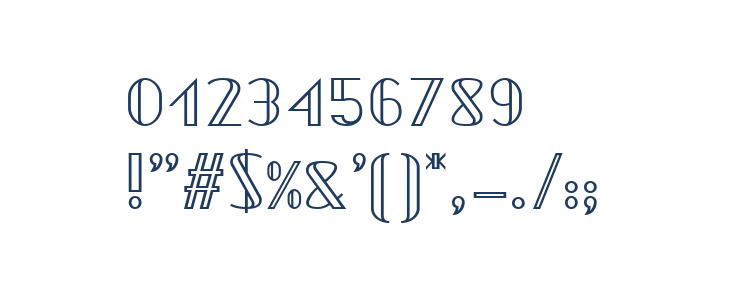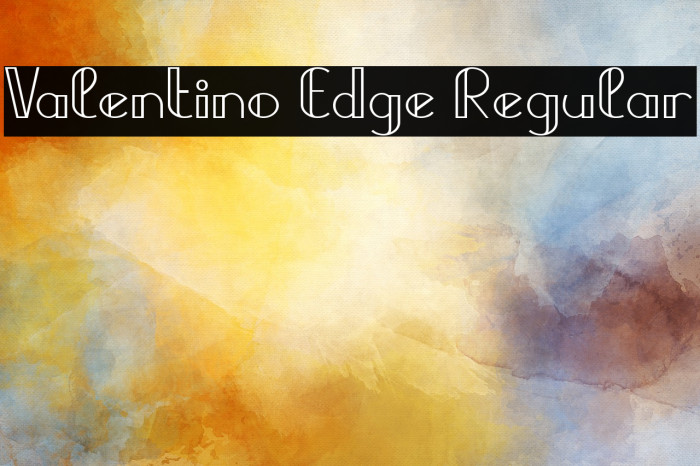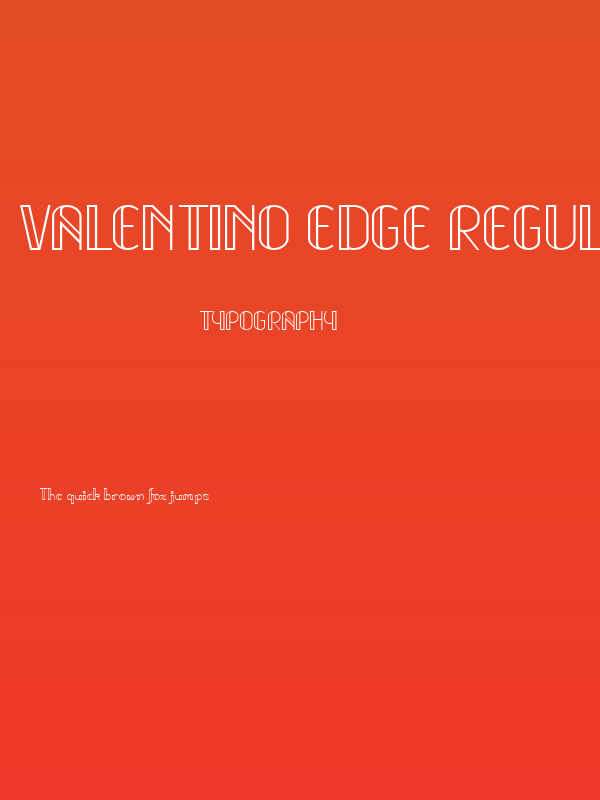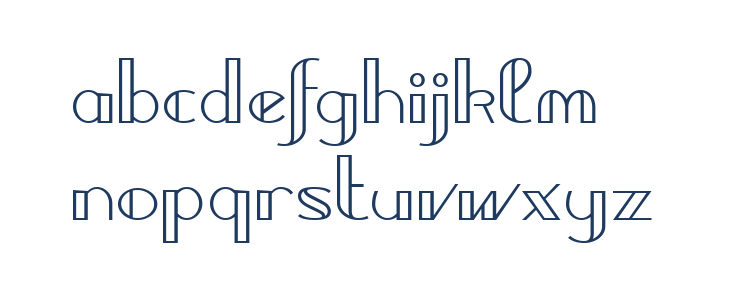
Valentino Edge Regular Font
Valentino Edge Regular Description
This font features a unique blend of modern and vintage aesthetics, characterized by its geometric shapes and clean lines. The uppercase letters exhibit a distinct art deco influence, with elongated forms and sharp angles, while the lowercase letters maintain a more rounded and approachable appearance. The numerals and special characters are designed with a consistent style, ensuring a cohesive look across all text. Its open and airy structure makes it highly legible, even at smaller sizes, while the thin strokes and minimal contrast add a touch of elegance and sophistication.
| Proposed Projects | Ideal for branding, editorial design, fashion magazines, and luxury product packaging. |